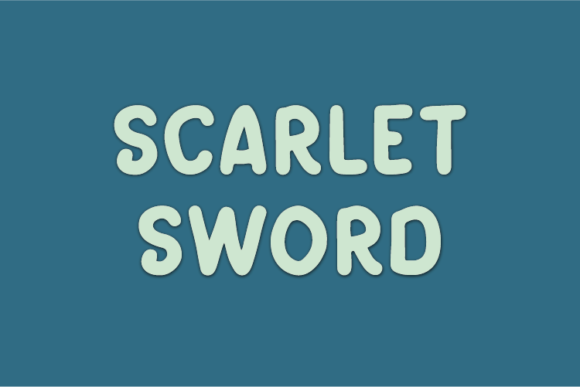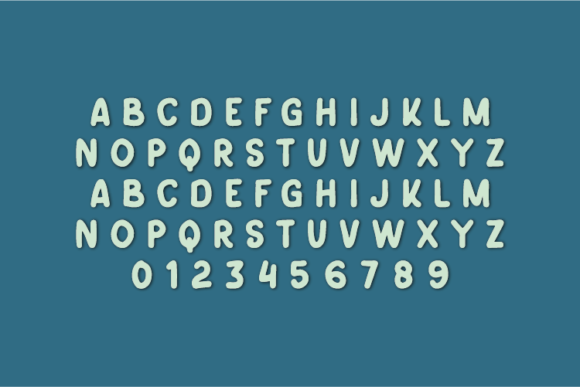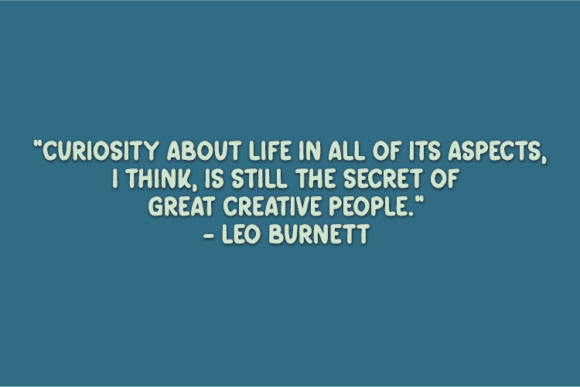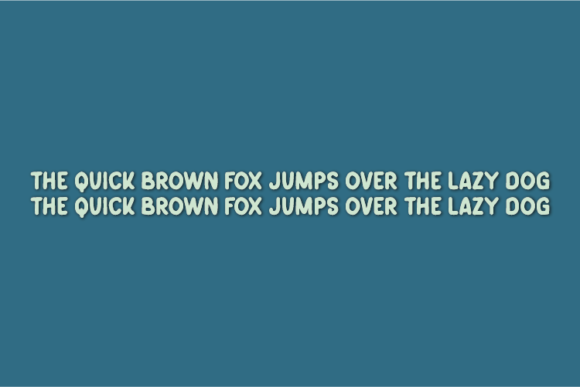
Scarlet Sword Font
About Scarlet Sword Font
Scarlet Sword is an adaptable and clean handwritten font. Its natural and unique style makes it incredibly fitting to a large pool of designs. The only limit is your imagination!